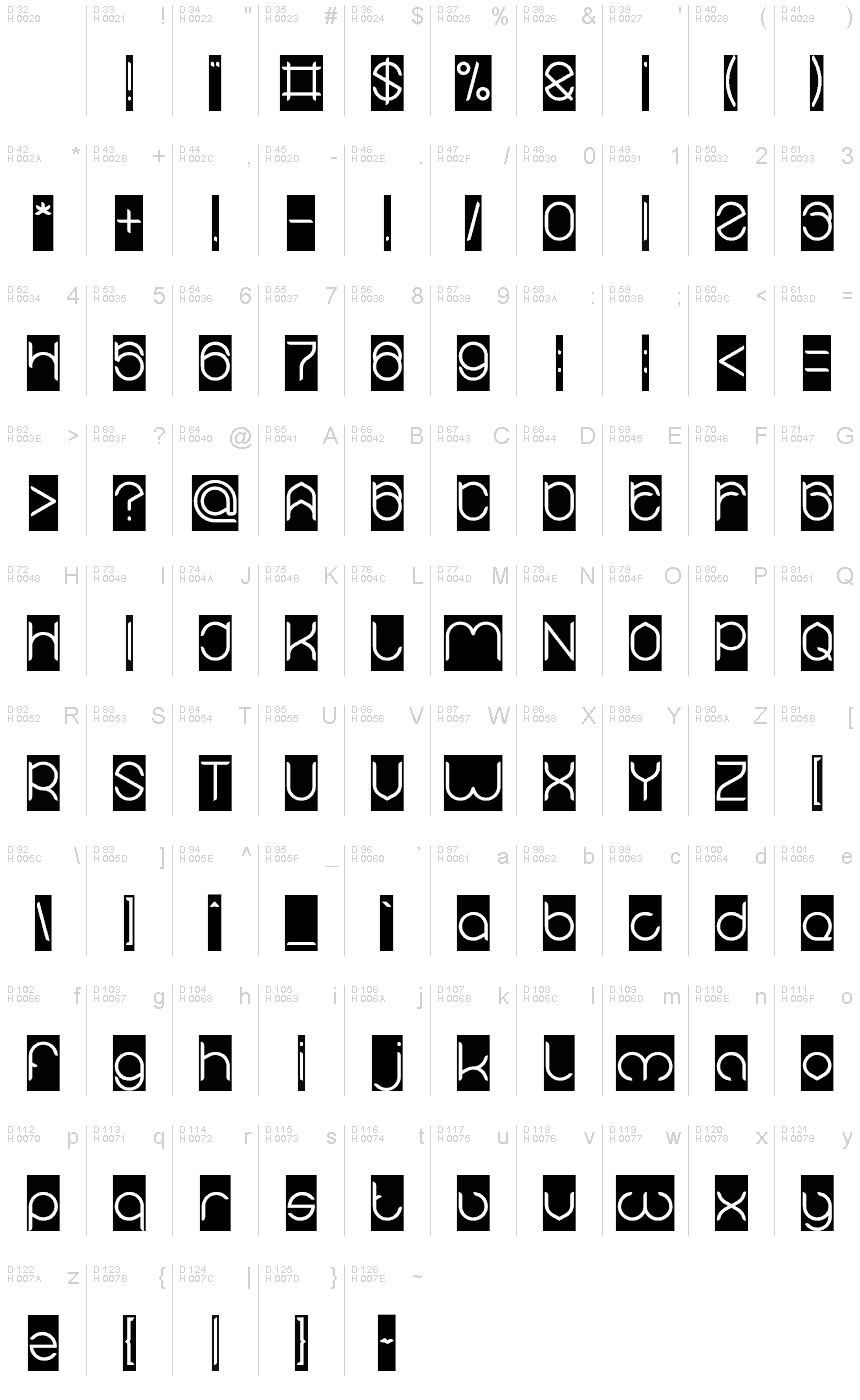
MICHELLE-Inverse
Michelle Inverse is a captivating display font that exudes a retro-futuristic charm. Designed by Weknow, this light-weight typeface features a striking negative space effect, creating a dynamic and visually arresting appearance. The groovy, undulating letterforms evoke a sense of movement and energy, making it an ideal choice for bold branding, editorial design, and promotional materials. With its versatile aesthetic, Michelle seamlessly blends vintage sensibilities with a modern, minimalist edge, allowing designers to craft distinctive and memorable typographic compositions.
Designers seeking to infuse their projects with a touch of retro-inspired flair will find Michelle a compelling option. Its unique style lends itself well to a range of applications, from eye-catching headlines and logos to standout packaging and poster designs. The font's light weight and clean lines also make it a suitable choice for digital interfaces, where its legibility and visual impact can effectively capture user attention.